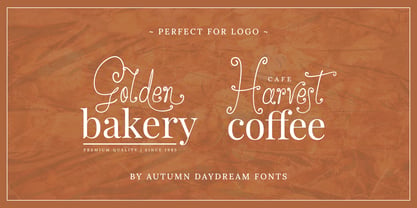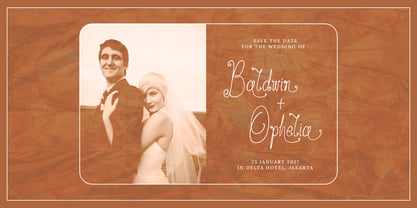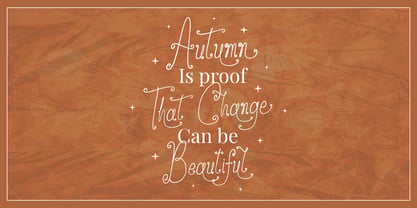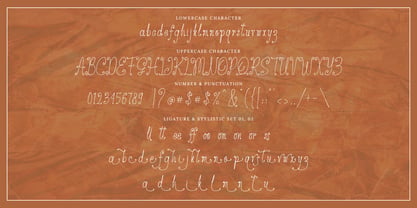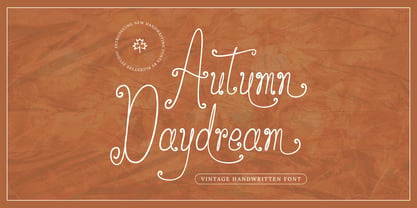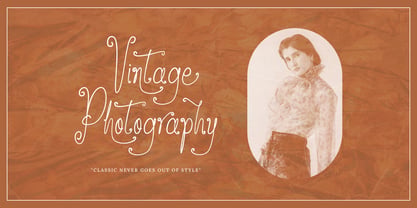
Autumn Daydream
by Bluestype Studio
The Autumn Daydream Font Family was designed by Jefri Dwi Alfatah and published by Bluestype Studio. Autumn Daydream contains 1 styles. More about this family
Embrace nostalgia and classic charm with Autumn Daydream, a vintage handwritten font designed to bring a timeless, organic warmth to your creative projects. Crafted with fluid, retro-inspired strokes, this font captures the authentic essence of old-school penmanship, offering a relaxed yet sophisticated aesthetic with a beautifully aged feel.
What sets Autumn Daydream apart is its stunning collection of unique alternate characters featuring graceful, sweeping tails (swashes). These expressive vintage tails allow you to add a custom, heritage-inspired touch to your designs effortlessly. Whether you want a sophisticated nostalgic finish or a playful, retro layout, Autumn Daydream provides the perfect touch of classic hand-lettering.